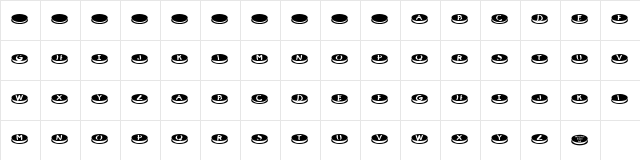
KR Dunkers Regular
Design Context for KR Dunkers Typeface
KR Dunkers is a composed and adaptable typeface that performs quietly and consistently across a wide range of design contexts.